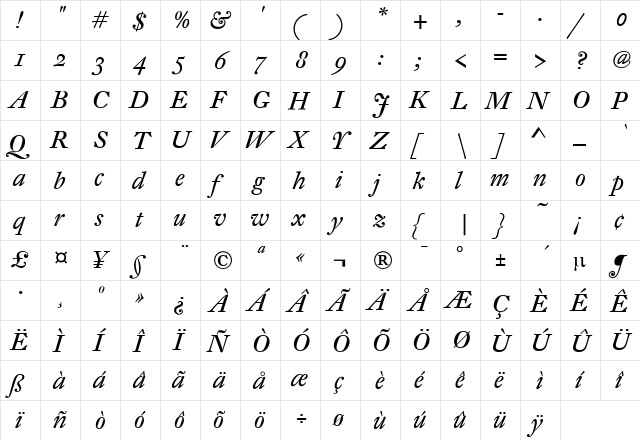
DTLFleischmannST Italic
Design Context for DTLFleischmannST Typeface
DTLFleischmannST is a composed and adaptable typeface that performs quietly and consistently across a wide range of design contexts. The slanted form adds forward momentum and visual energy.